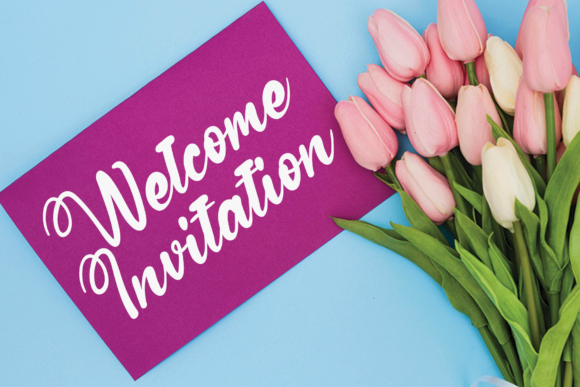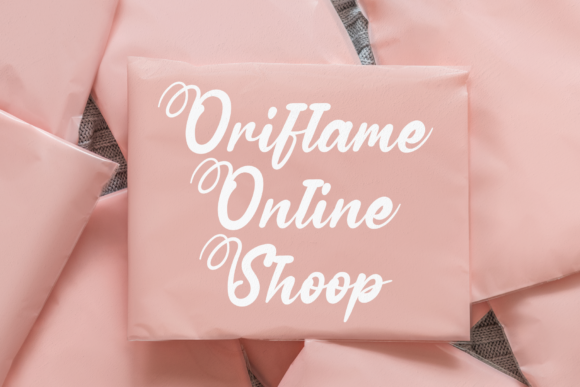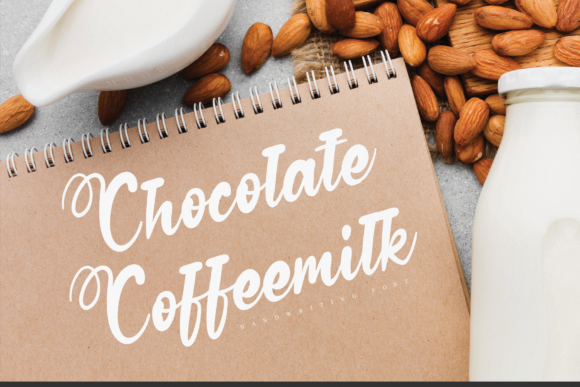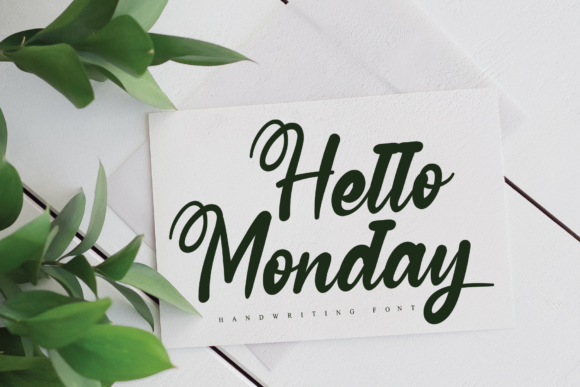
Love at First Sight: Introducing Agelnia Weddings Font
Have you ever been working on a design project and suddenly, everything clicks? The colors, the layout, the typography – it all comes together in a way that takes your breath away. For designers, those ‘aha’ moments are what make all the hard work worth it. And that’s exactly what you’ll experience when you fall in love with the Agelnia Weddings Font.
As a bold and elegant handwritten font, Agelnia Weddings Font is perfect for adding a touch of sophistication to your wedding invitations, event graphics, or any other project that requires a romantic and whimsical feel. Whether you’re a seasoned designer or just starting out, this font is sure to elevate your work and bring a smile to your clients’ faces.
Agelnia Weddings Font Key Features
- Font Family: Agelnia Weddings Font is a beautiful, elegant script font designed for wedding invitations and other special occasions.
- Character Count: The font contains 700+ glyphs, including uppercase and lowercase letters, numbers, and punctuation marks.
- Unique Characteristics: Agelnia Weddings Font features intricate, hand-drawn designs and subtle flourishes, making it perfect for adding a touch of elegance to wedding invitations, stationery, and other special occasions.
Agelnia Weddings Font Review
I recently had the chance to work with the Agelnia Weddings Font, and I must say it’s a beautiful addition to any wedding design project. ✨ The font’s elegant and whimsical style immediately caught my eye, and it’s perfect for creating a romantic and vintage atmosphere.
One of the things that works particularly well is the font’s flexibility. ✨ You can use it for a variety of design elements, from invitation wording to signage and even stationery. The font’s cursive style also lends itself well to hand-lettering and custom illustrations, which can add an extra touch of personality to your designs.
However, there are a few limitations to consider. ⚠️ The font may not be suitable for larger blocks of text, as the cursive style can make it difficult to read. Additionally, some of the characters may not be as detailed as others, which can be a bit distracting.
Overall, I think the Agelnia Weddings Font is a great choice for wedding designers who want to create a romantic and elegant atmosphere. With its flexibility and beautiful design, it’s a great addition to any design project. Just be mindful of the limitations and use it thoughtfully.
- Elegant and whimsical design
- Flexible for various design elements
- Perfect for romantic and vintage designs
- May not be suitable for larger blocks of text
- Some characters may not be as detailed as others
Use Agelnia Weddings Font for wedding invitations, wedding stationery, and other wedding-related designs. You can also use it for other designs that require a elegant and sophisticated look.
Agelnia Weddings Font is commonly used for:
- Wedding invitations
- Wedding stationery
- Wedding websites
- Wedding social media graphics